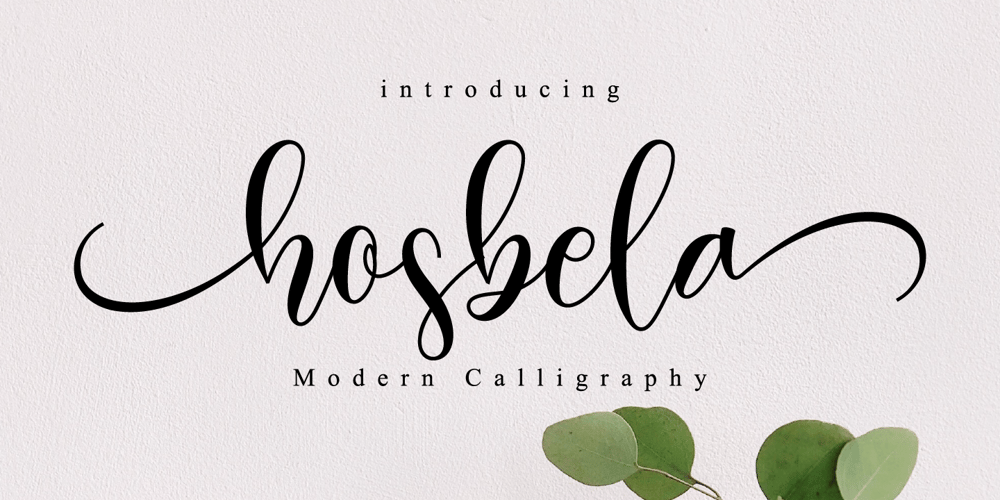
Hosbela Font Family was designed by Novia Himatunnisa and published by Nissa Nana. Hosbela contains 1 styles and family package options. Hosbela is a beautiful script font. It has a classy, elegant, and modern look that works perfectly in any design projects in need of a handwritten touch.